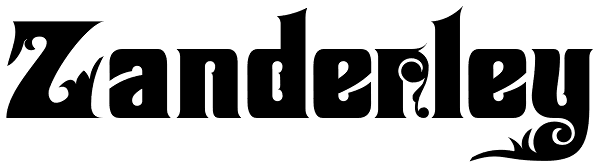
Zanderley
Zanderley was inspired by a small, almost random sample from a turn-of-the-last- century calligrapher’s instructional manual. It’s a bit Roman, mixed with a little blackletter and a lot of random decorative fun.The family consists of two typefaces...
Zanderley Initials
Zanderley